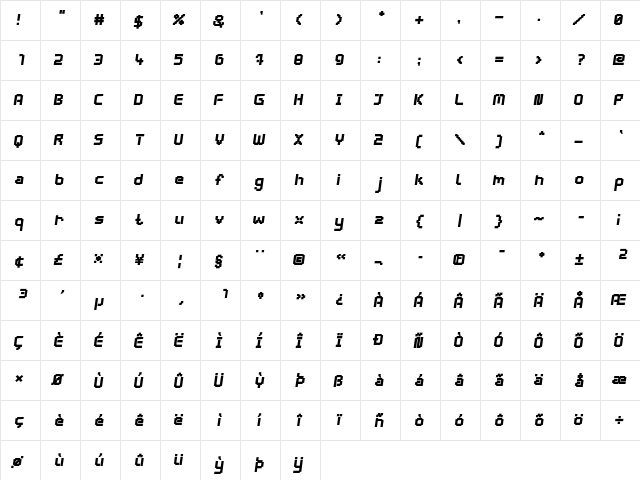
webpixel bitmap Black-Italic
| Foundry | Manuel Viergutz |
| Designer | Manuel Viergutz |
Design Context for webpixel bitmap Typeface
webpixel bitmap celebrates the constraints of early digital type, turning pixel geometry into a distinctive and immediately recognisable style. The dynamic lean of this cut emphasises speed and emphasis in any layout.
A natural choice for retro game titles, chiptune music branding, 8-bit UI, and digital nostalgia projects.
Pro Tip: Pair webpixel bitmap with flat colour palettes and simple geometric UI elements to reinforce its digital aesthetic.